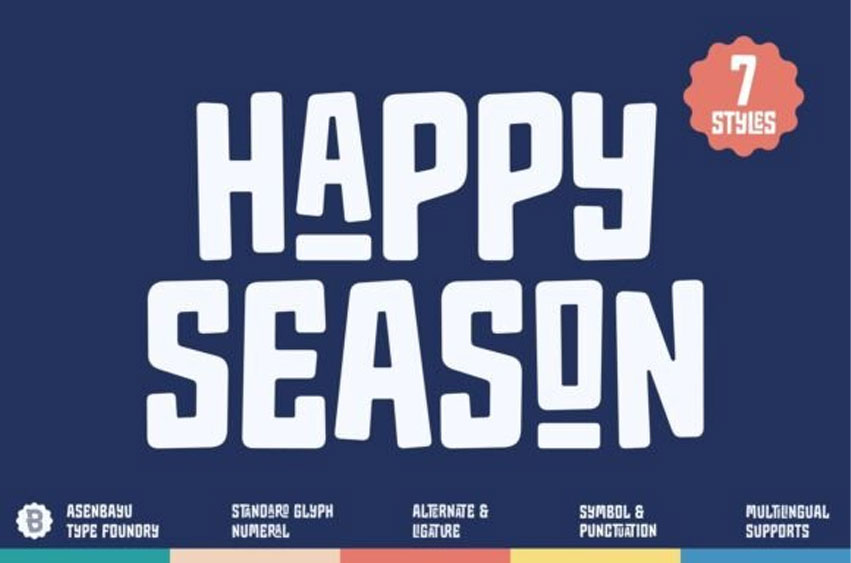
Happy Season Font is a modern playful sans serif font family consisting of 7 styles. Happy Season font has an energetic, lively design that feels fun & approachable.
The rounded edges give a friendly, welcoming look and make the letters feel more casual. This font is suitable for trendy packaging label designs, unique desired logos, headlines, poster designs, fashion, and many more.